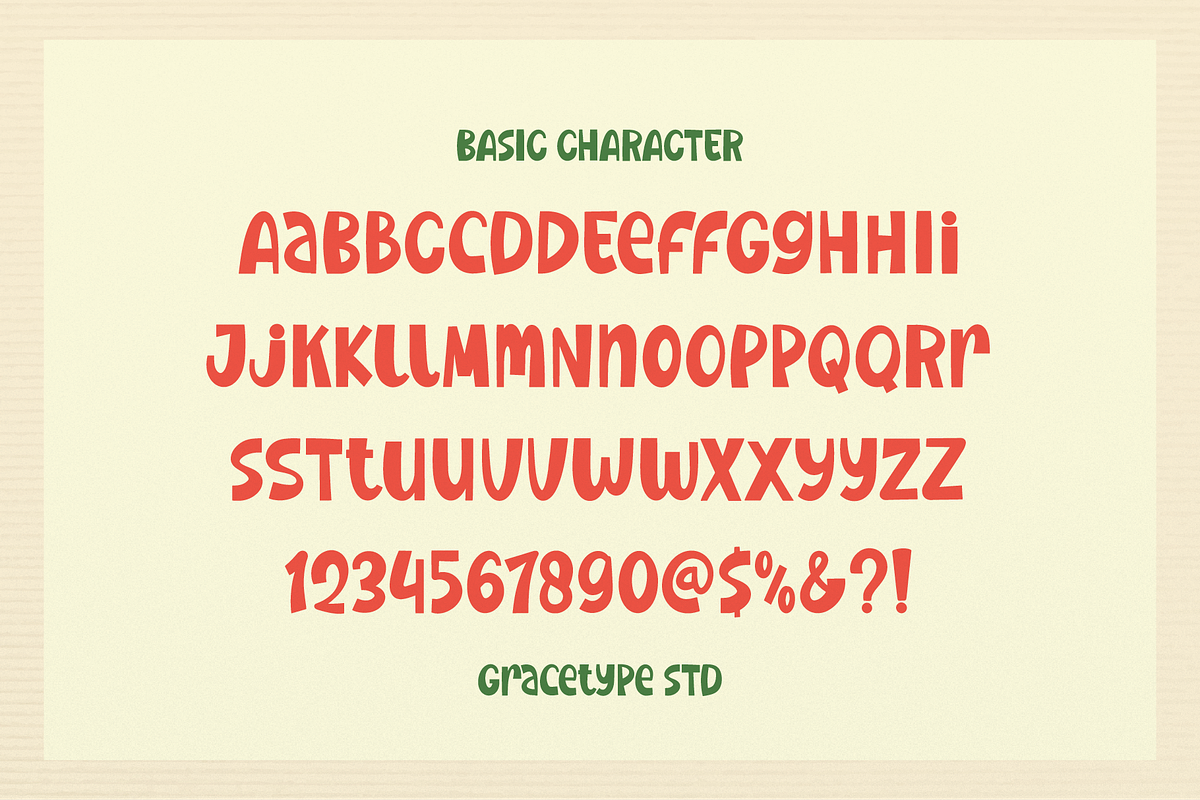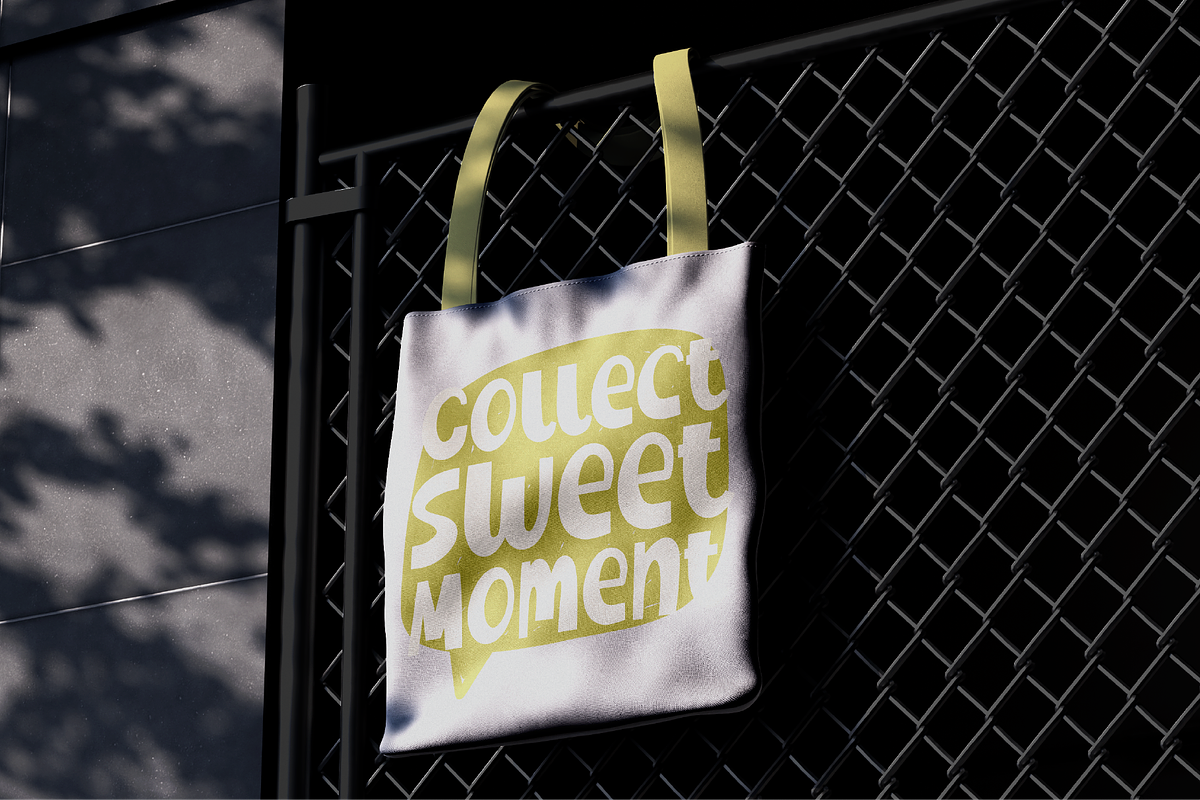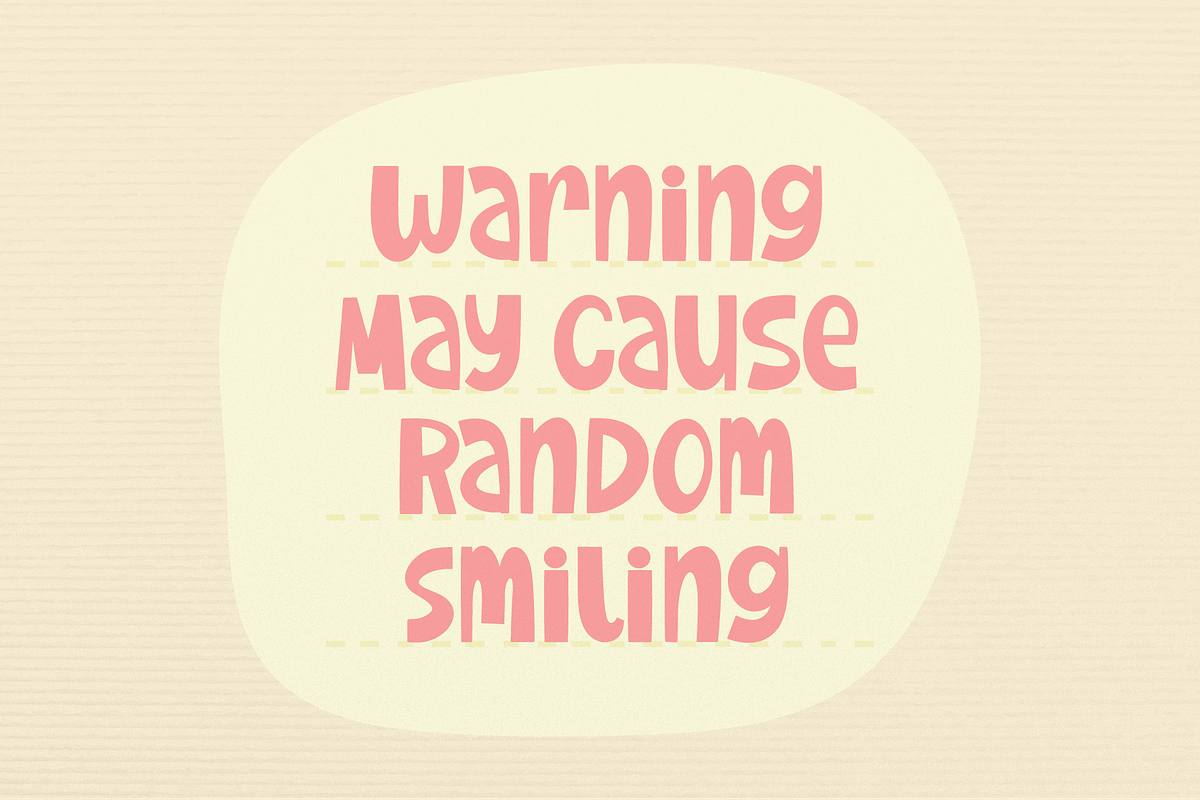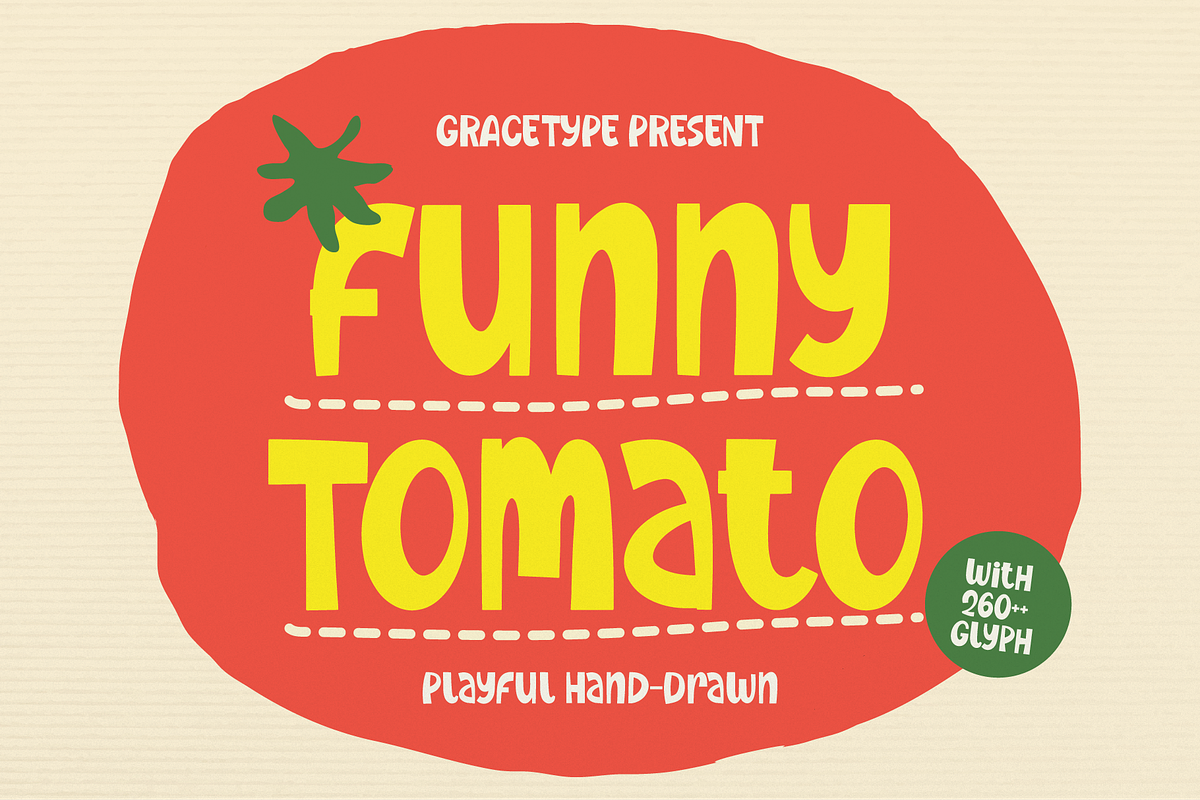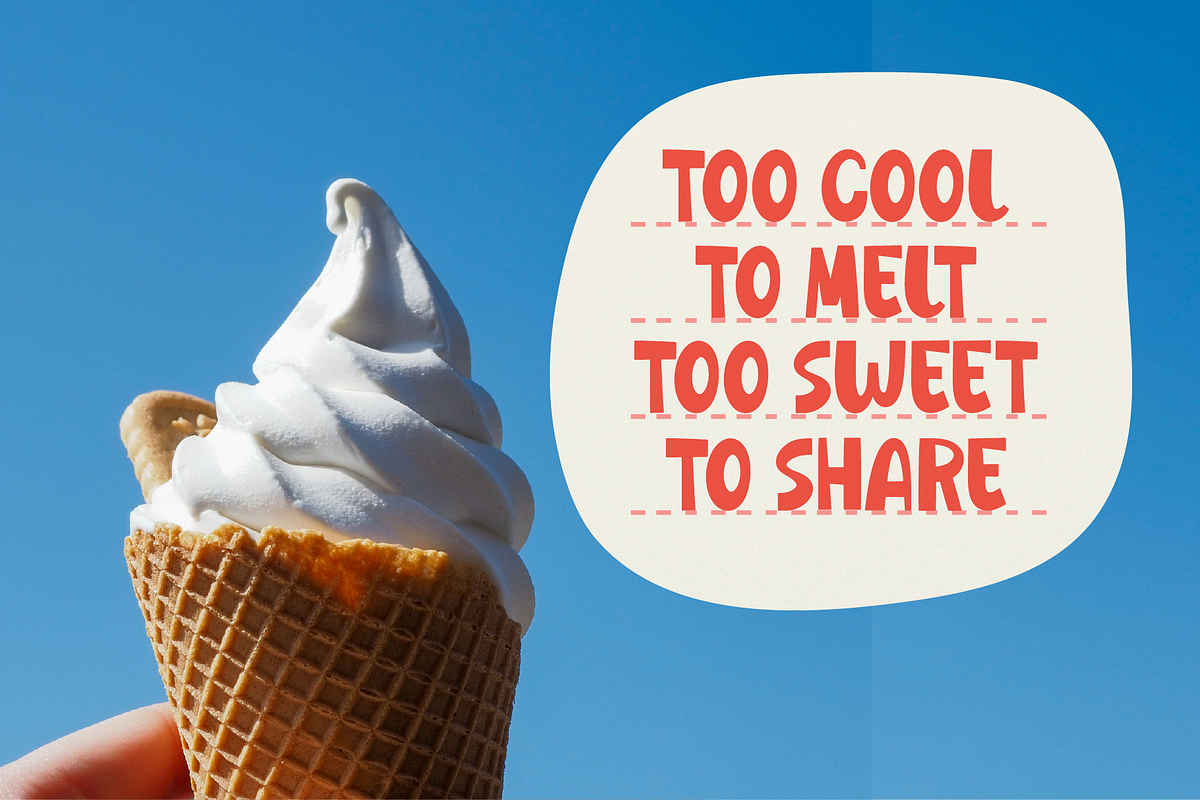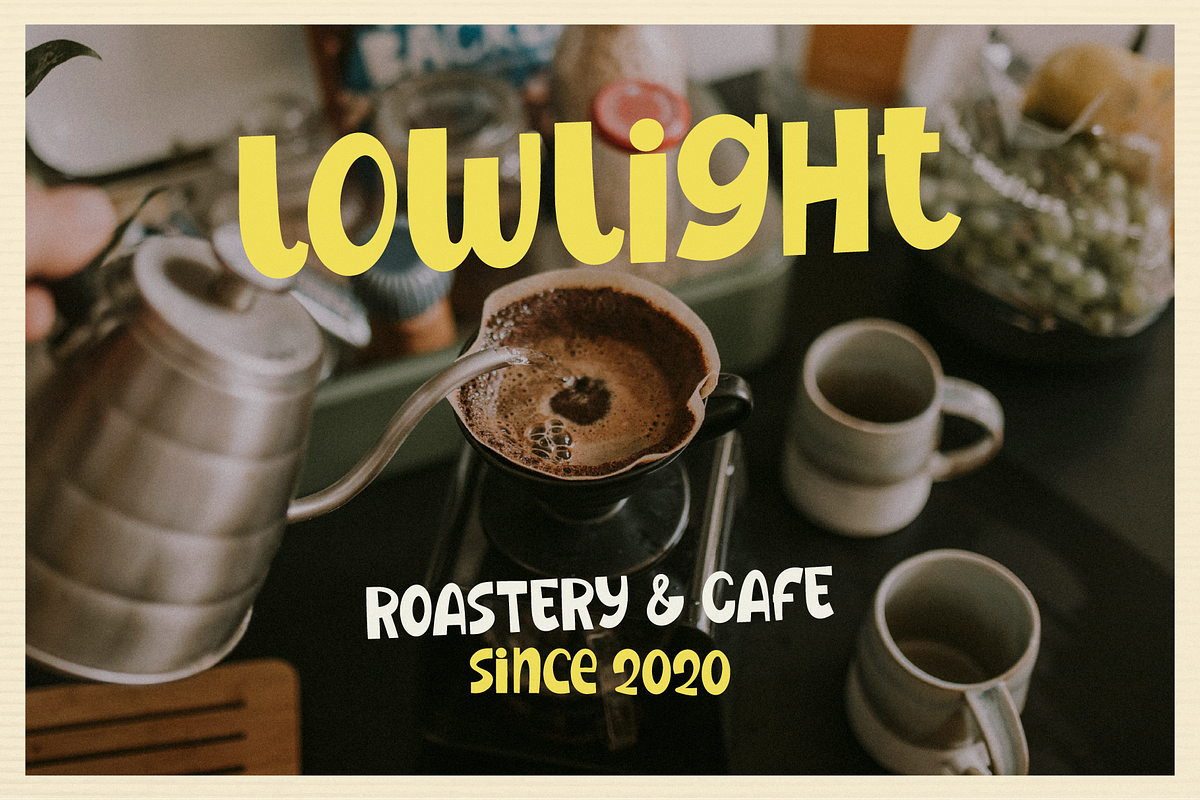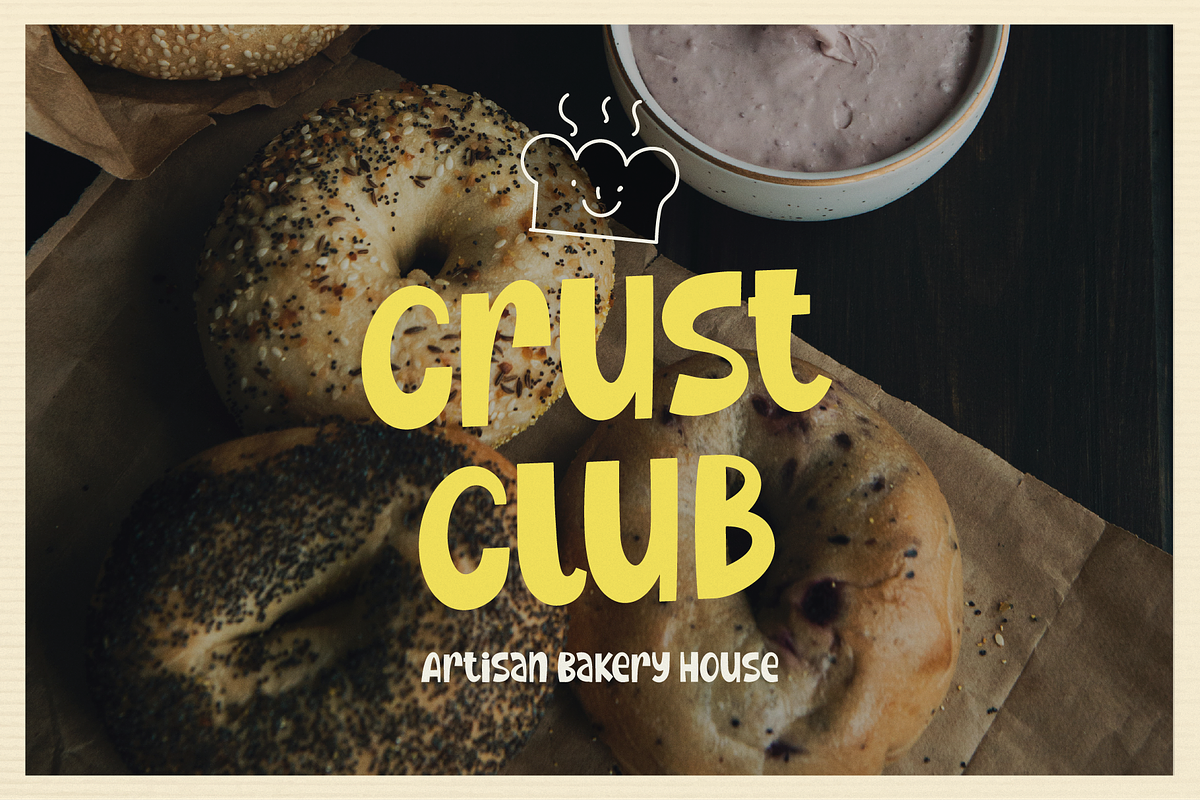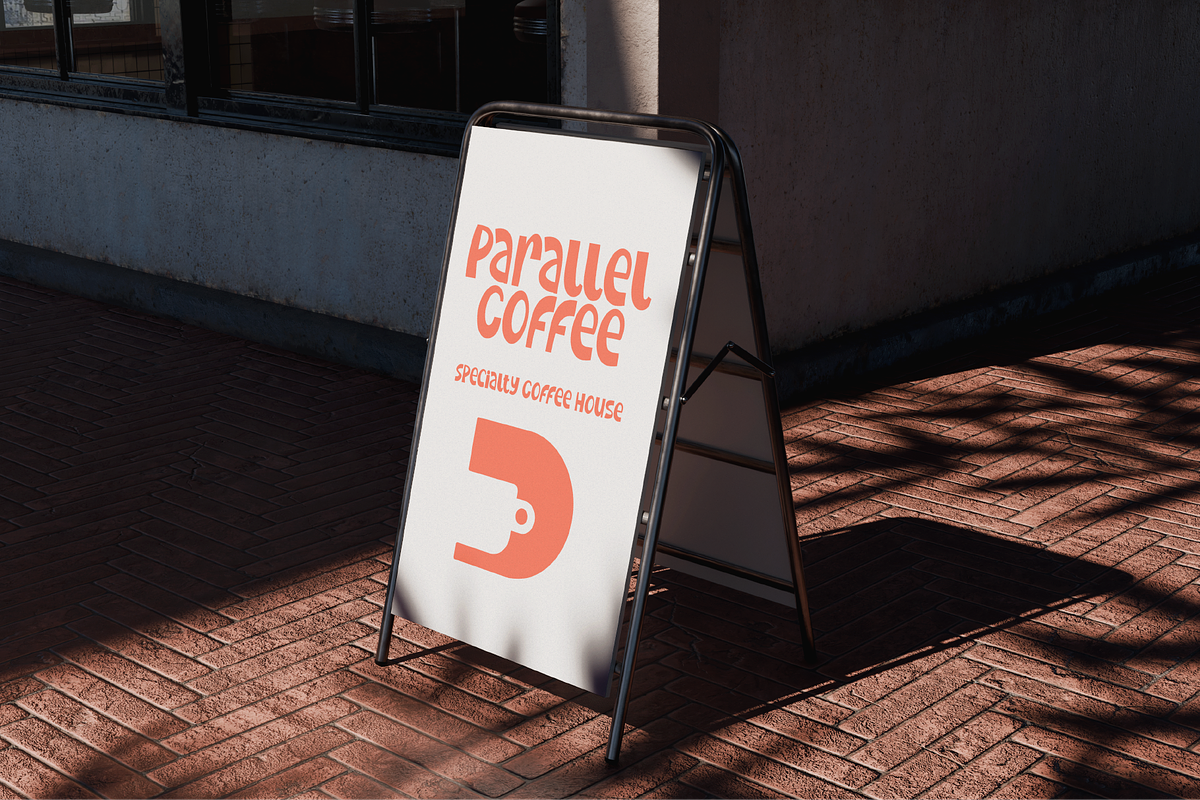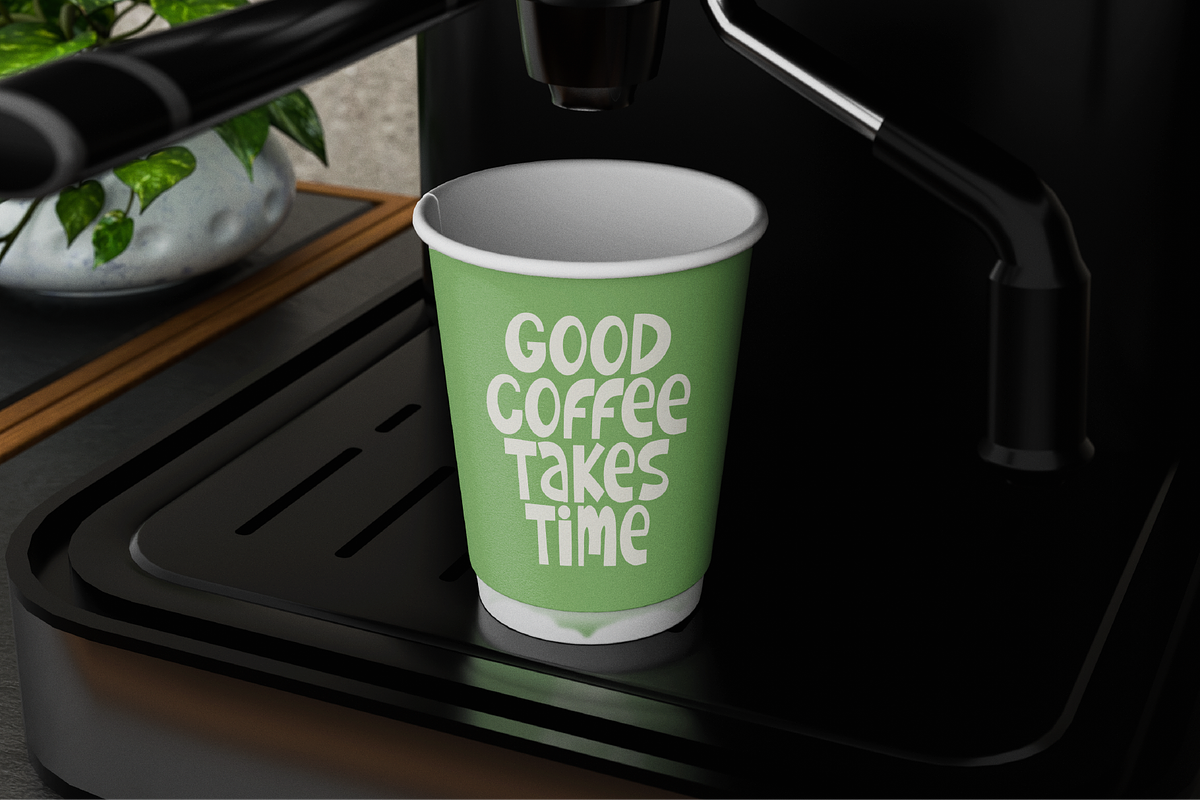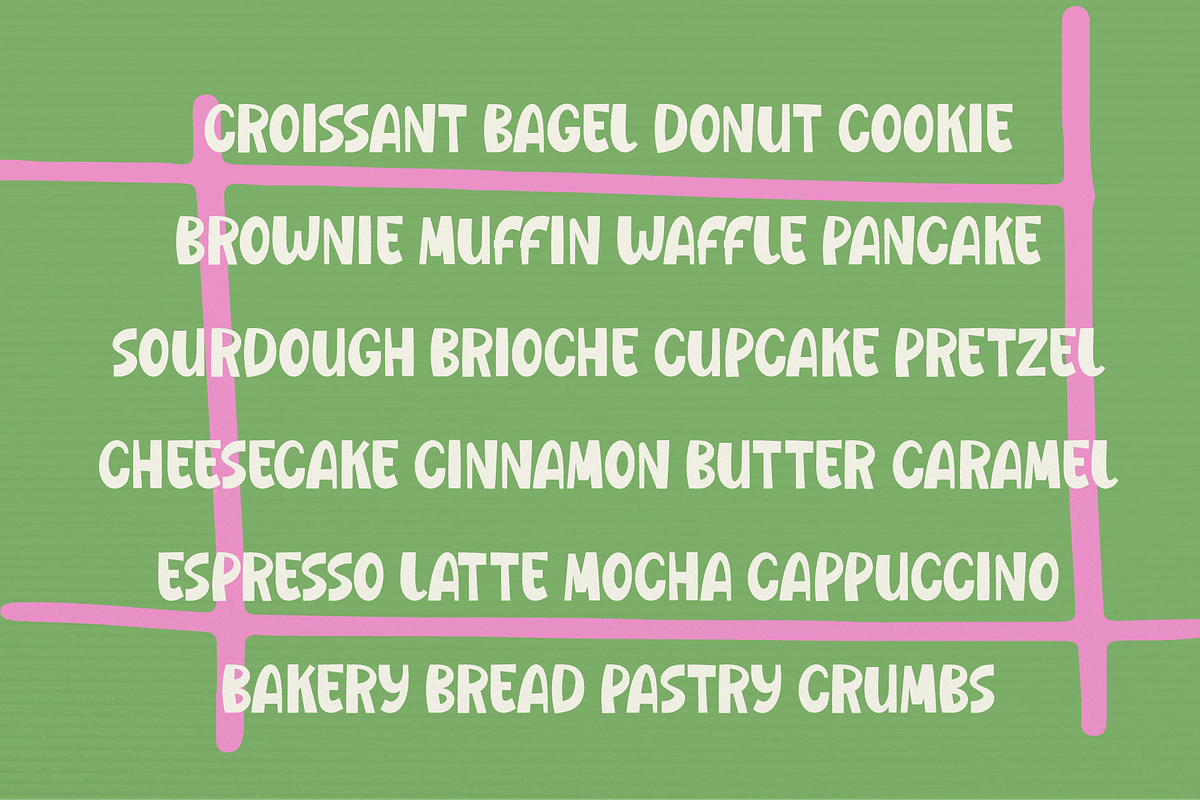
Funny Tomato | Playful Hand Drawn
Funny Tomato | Playful Hand Drawn, from Gracetypestudio, suitable for any projects such as: logos, branding projects, homeware designs, product packaging, mugs, quotes, posters, shopping bags, t-shirts, book covers, name card, invitation cards, greeting cards, label, photography, watermark, special events, and all your other lovely projects that need a Hand Drawn taste.
Alternate and Ligature